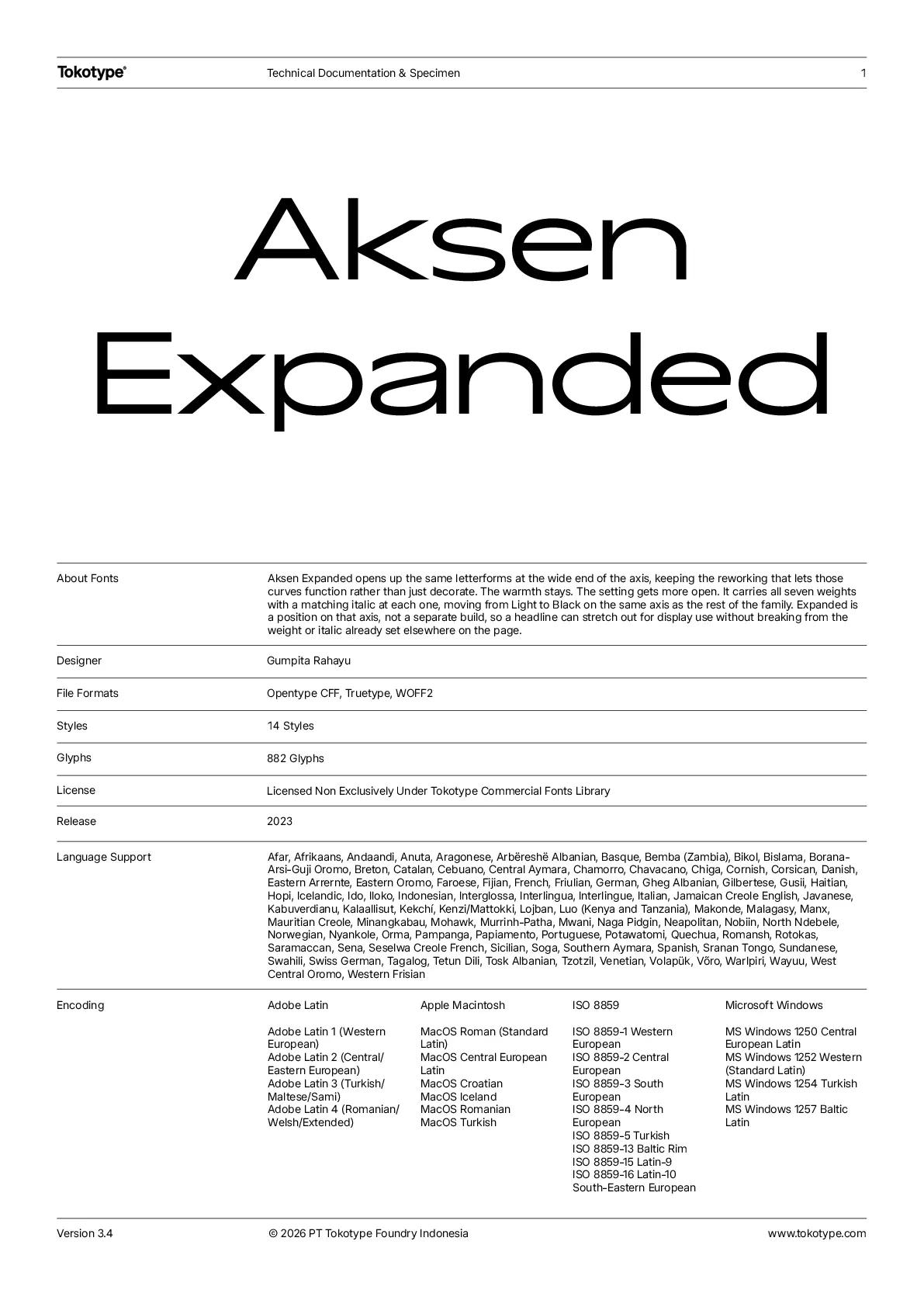
Aksen Expanded
About Font
Aksen Expanded opens up the same letterforms at the wide end of the axis, keeping the reworking that lets those curves function rather than just decorate. The warmth stays. The setting gets more open. It carries all seven weights with a matching italic at each one, moving from Light to Black on the same axis as the rest of the family. Expanded is a position on that axis, not a separate build, so a headline can stretch out for display use without breaking from the weight or italic already set elsewhere on the page.